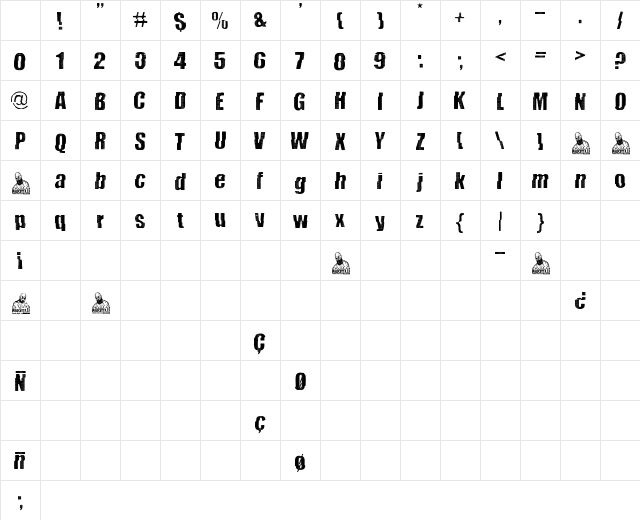
Complete Garbage And Death Attic Regular glyph index. Displaying only characters natively supported by Garbage And Death Attic Regular font.
Garbage And Death Attic carries an unsettling edge - its distorted letterforms are built to unsettle, perfectly suited to horror, Halloween, and dark creative work.